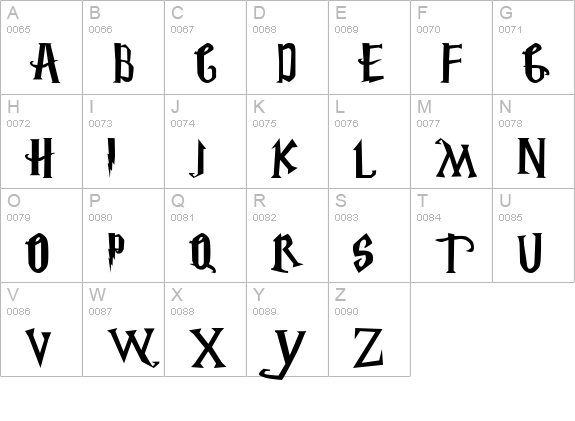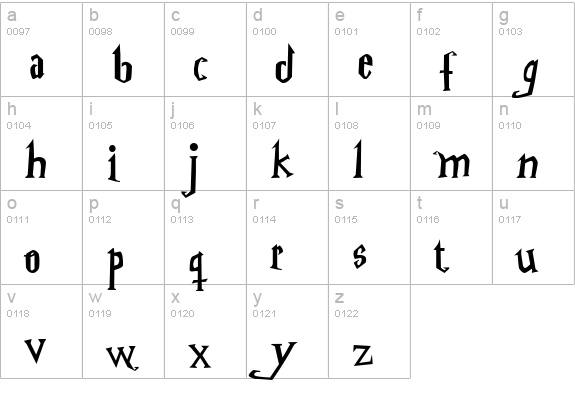
Harry Potter Font Details
Introducing the mesmerizing and enchanting Harry Potter font, a true gem for all the fans of the magical world of Hogwarts. This extraordinary font captures the essence of the beloved series, bringing to life the whimsy, adventure, and mystery that has captured the hearts of millions. Crafted with meticulous attention to detail, the Harry Potter font is a perfect tribute to the iconic typography used in the books and movies. Each letter exudes the same magical aura that has made the series so beloved, allowing you to add a touch of wizardry to your designs, projects, and creations. What sets the Harry Potter font apart is not only its stunning aesthetics but also the fact that it is completely free to download. Yes, you read that right! This captivating font is freely available to all Potterheads, courtesy of FontsMarket.com. Now, you can immerse yourself in the world of Harry Potter without any restrictions or limitations. Whether you're designing a Harry Potter-themed party invitation, crafting a spellbinding poster, or simply adding a touch of magic to your personal blog, the Harry Potter font is the perfect tool to bring your visions to life. Its versatility and elegance make it suitable for a wide range of creative endeavors, ensuring that no matter the occasion, your work will be infused with the same enchantment that has captivated generations. So, don't miss this incredible opportunity to download the Harry Potter font for free at FontsMarket.com. Unleash your imagination, embrace the wizarding world, and let your creativity soar to new heights with this captivating and spellbinding font.